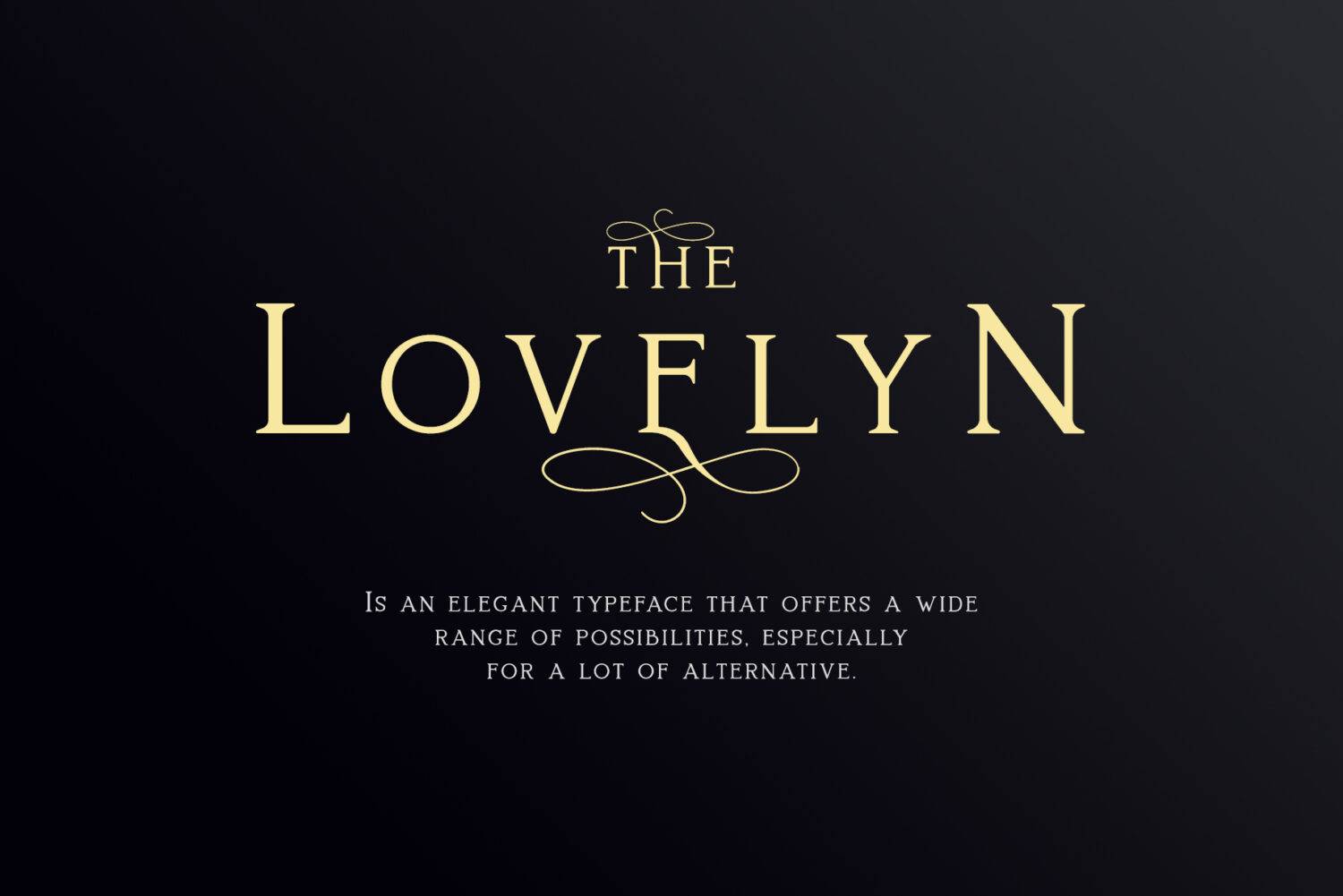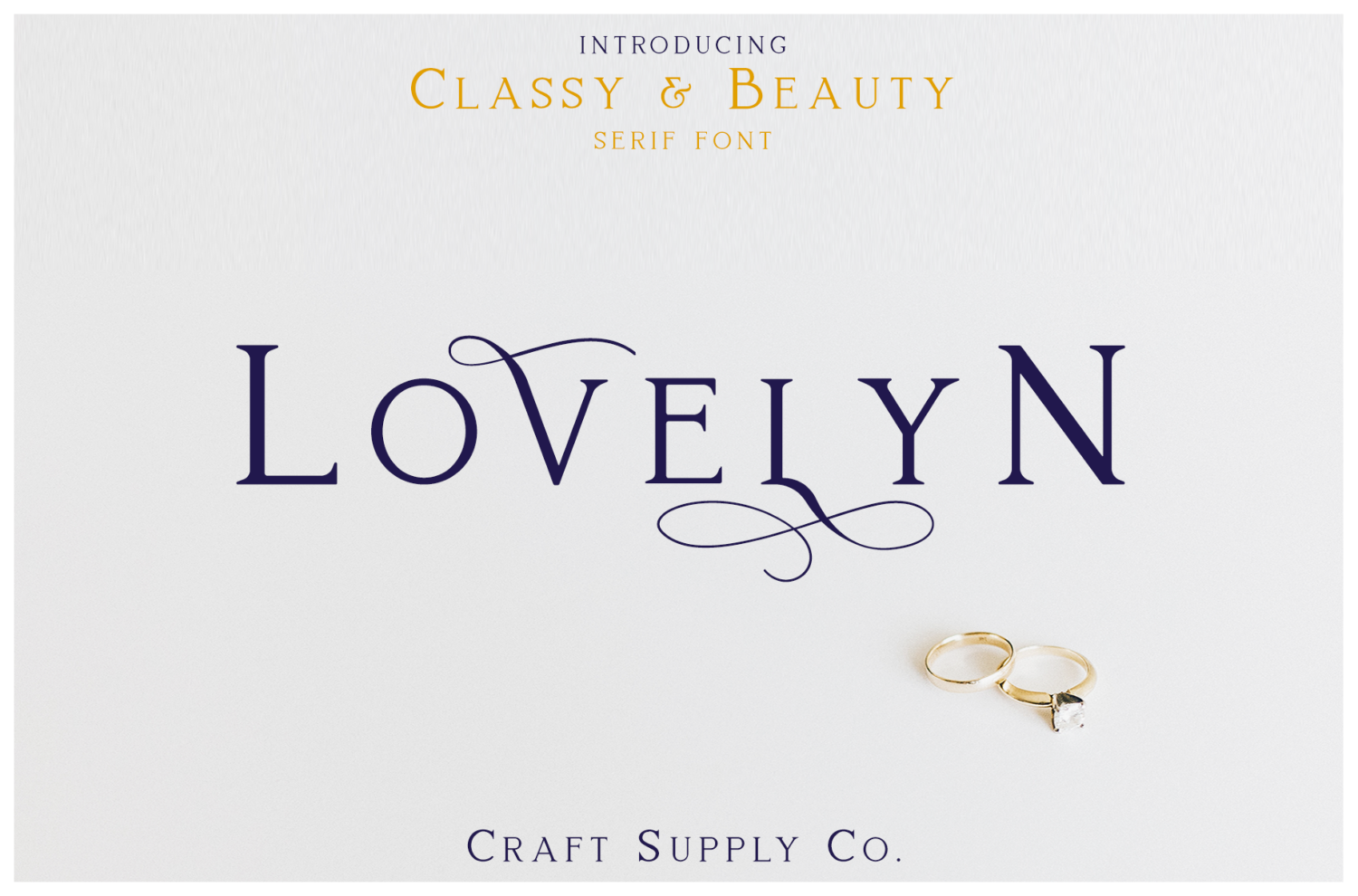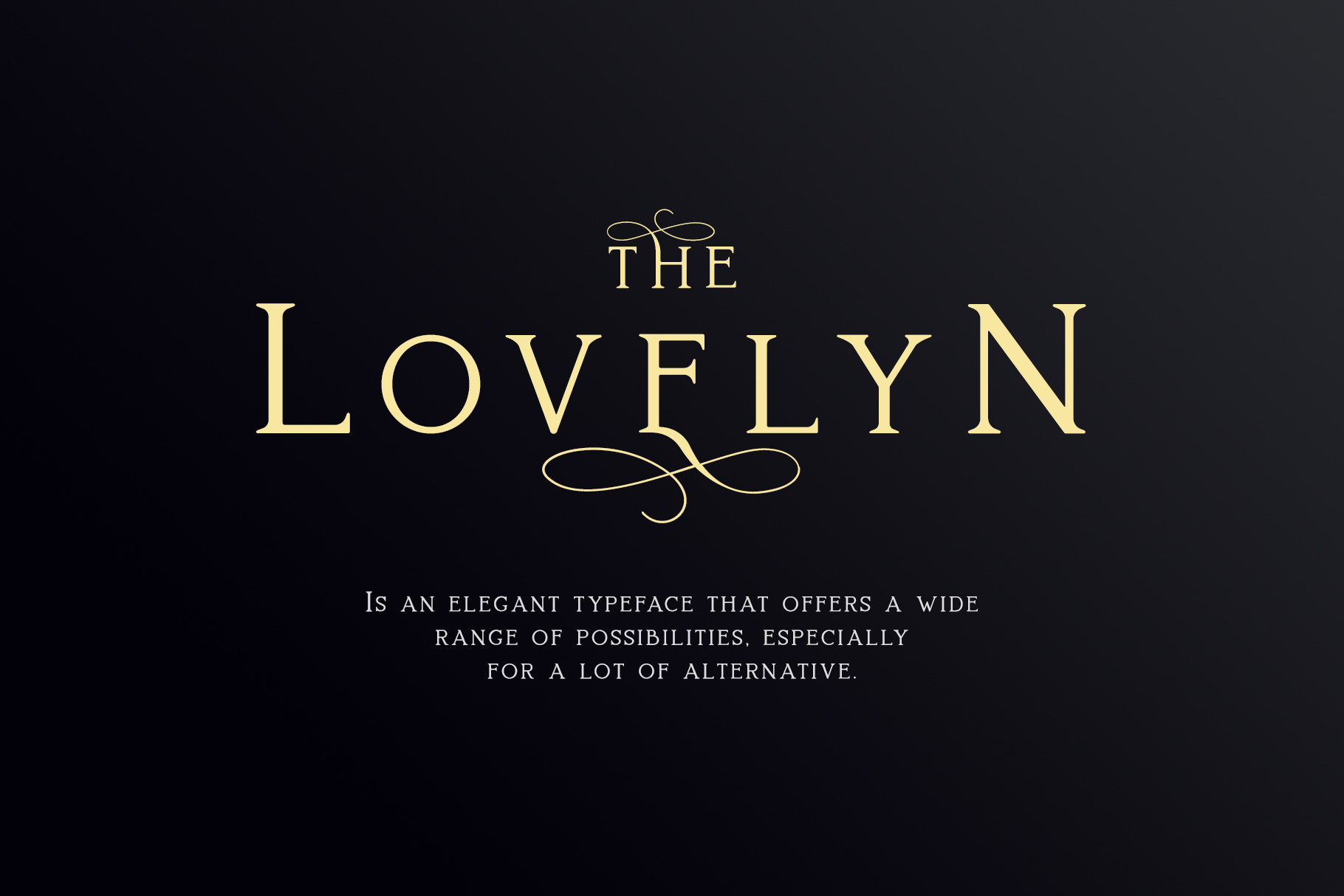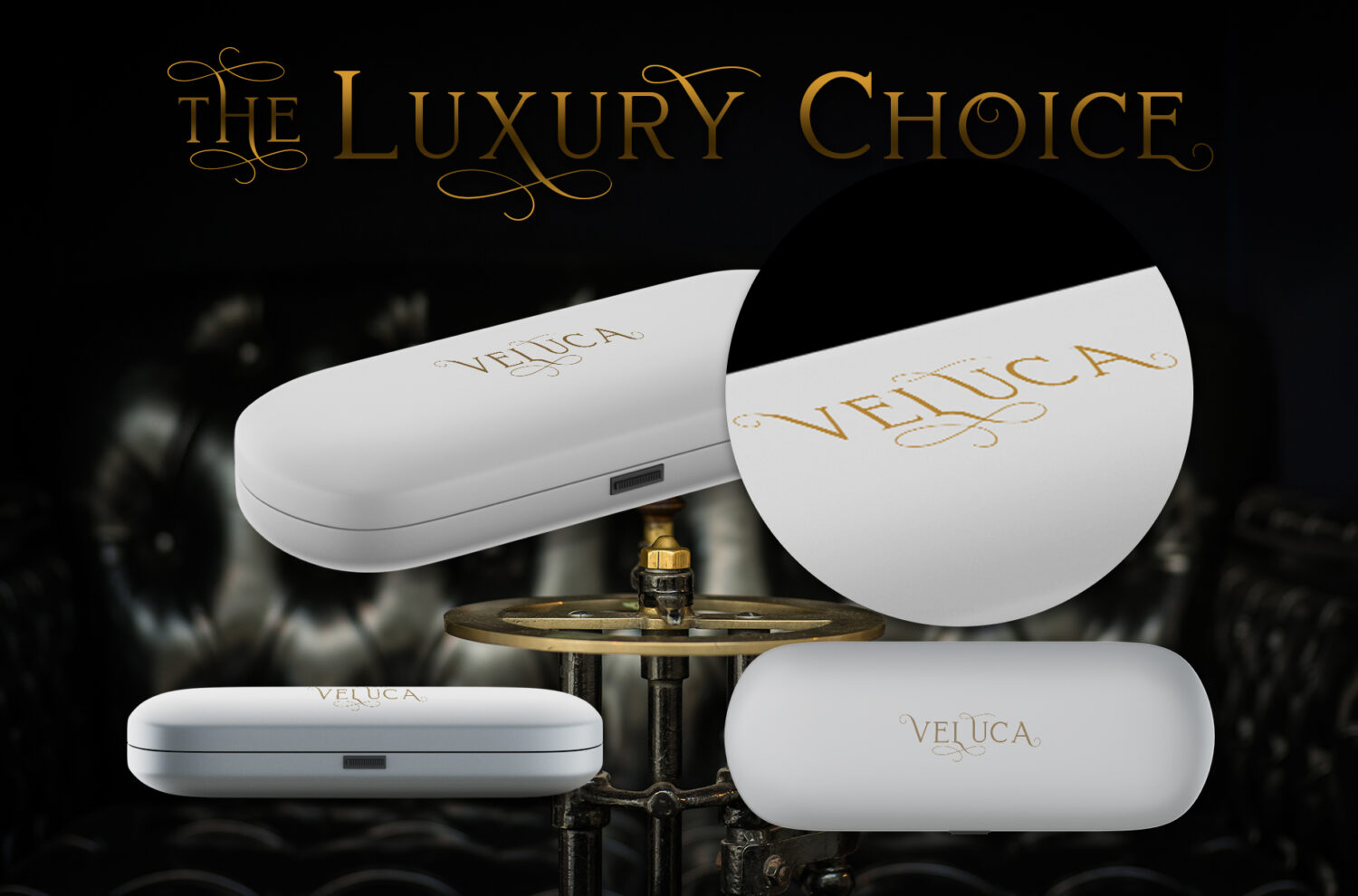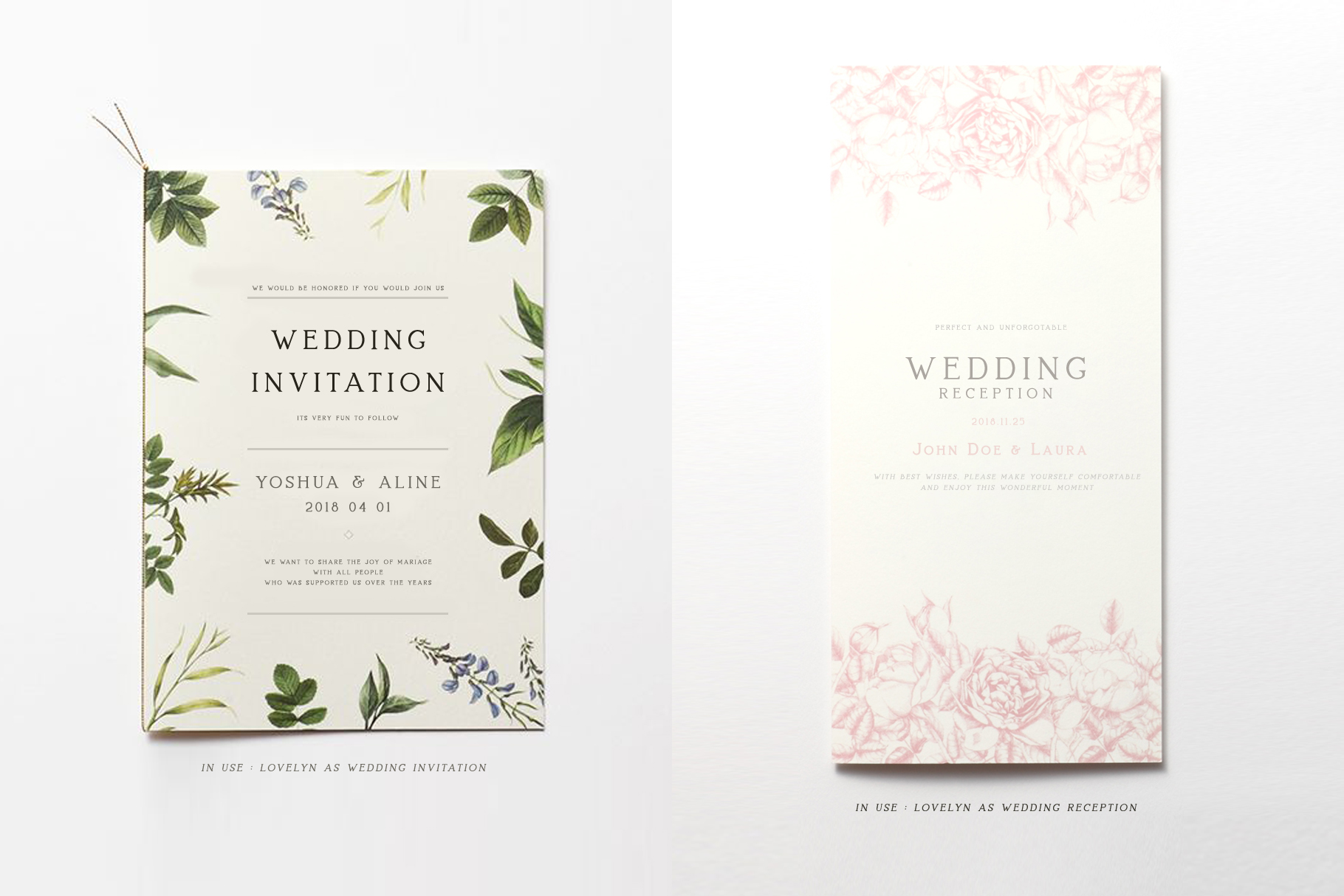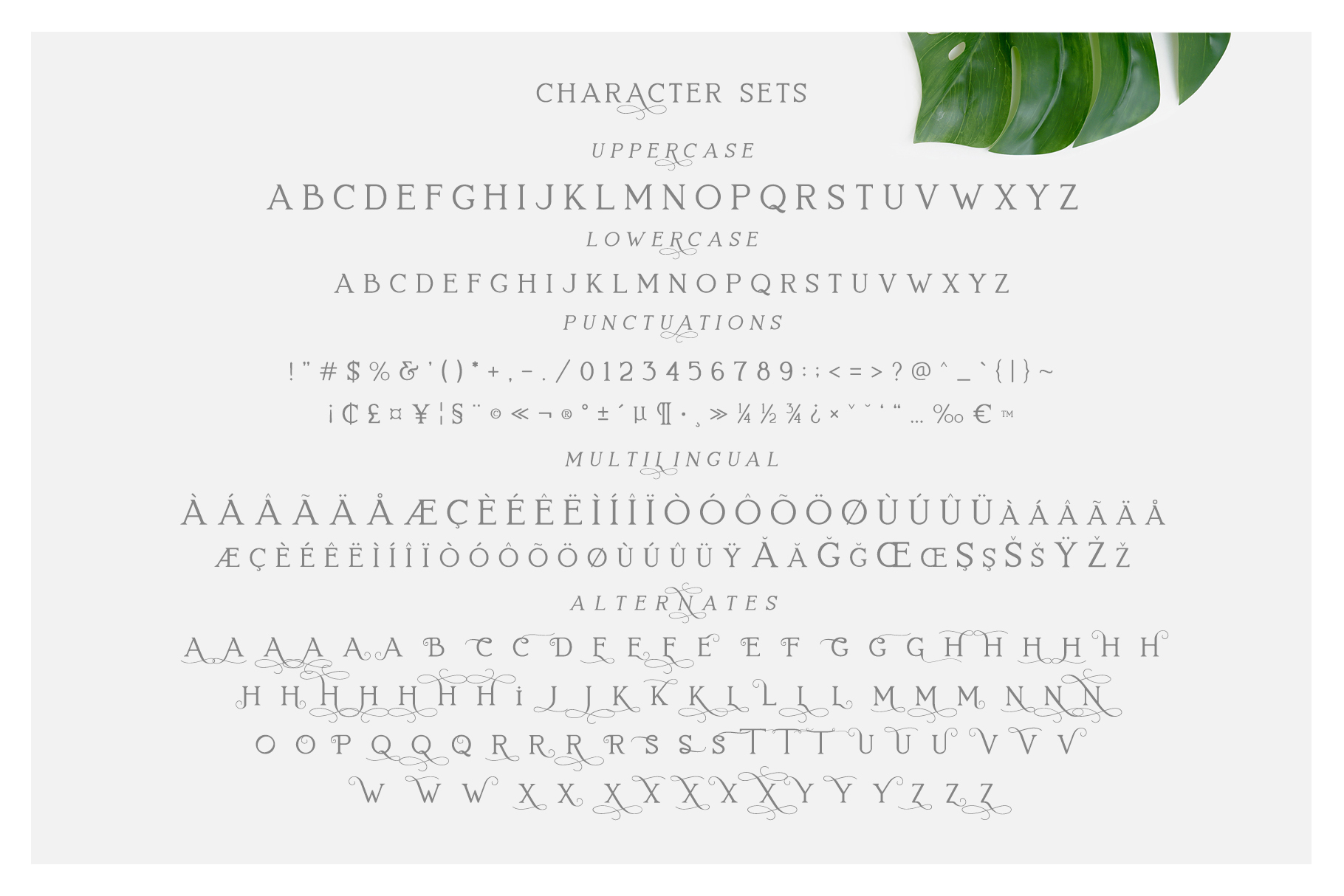
Lovelyn is a refined serif font characterized by its elegant, high-contrast strokes and delicate, thin serifs that evoke a classic, sophisticated feel. Its tall, slender letterforms with smooth curves and sharp details make it perfect for luxury branding, editorial headlines, and formal invitations where a timeless, graceful style is desired.
Lovelyn Font
About Lovelyn Font